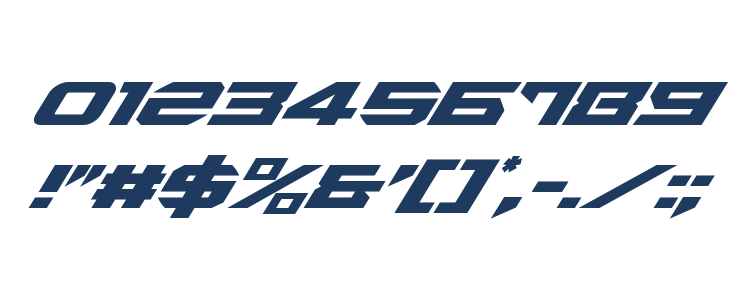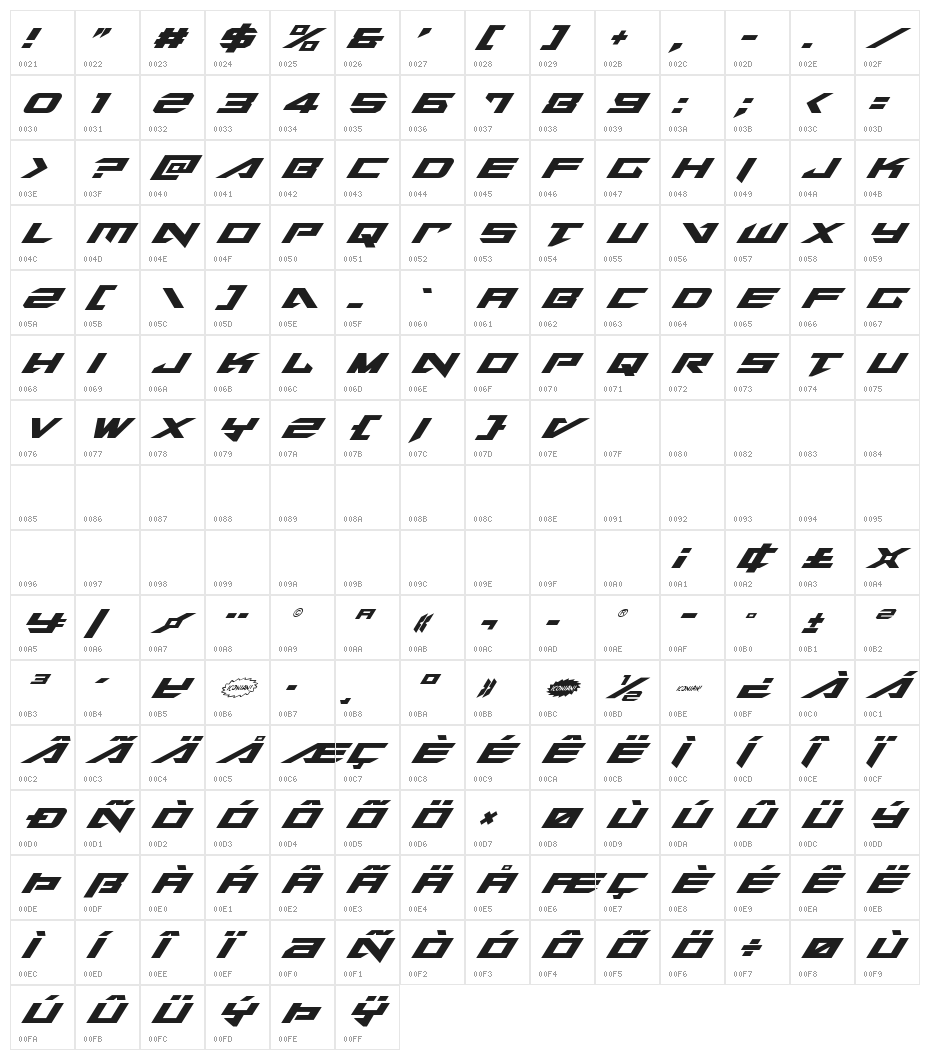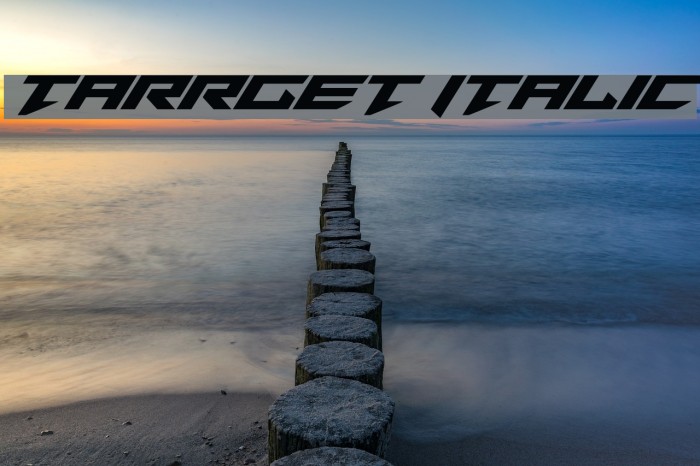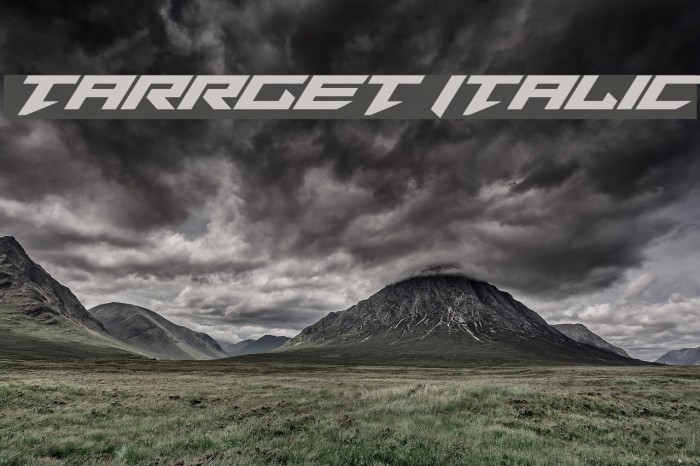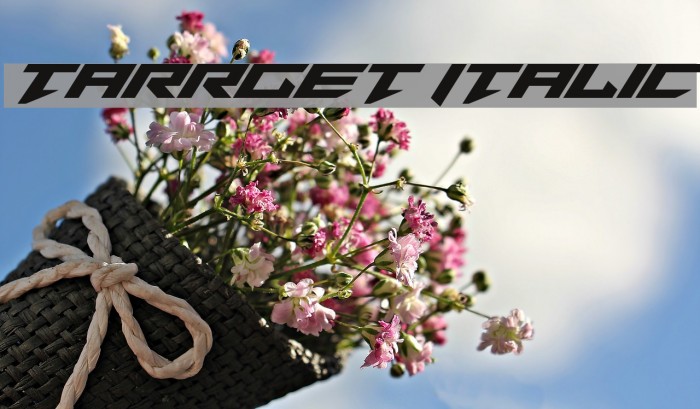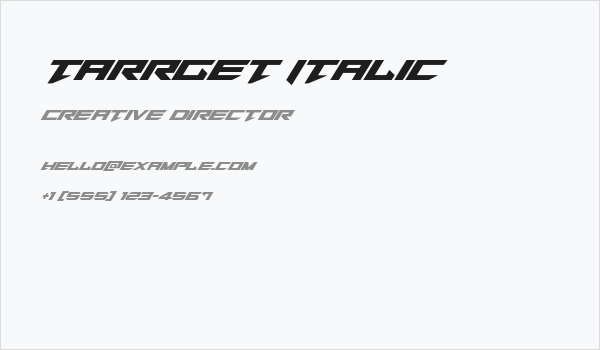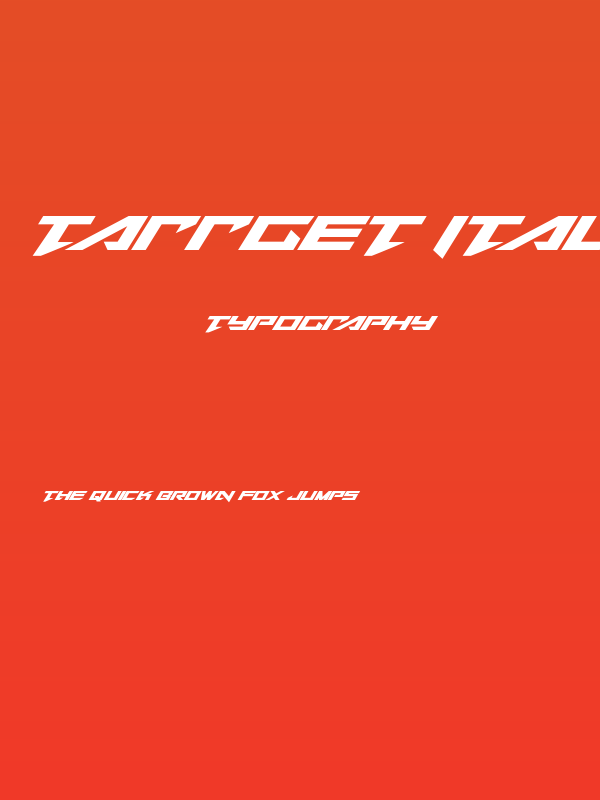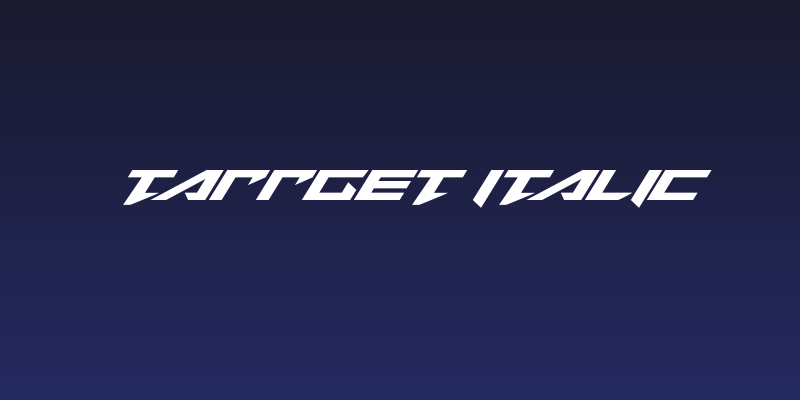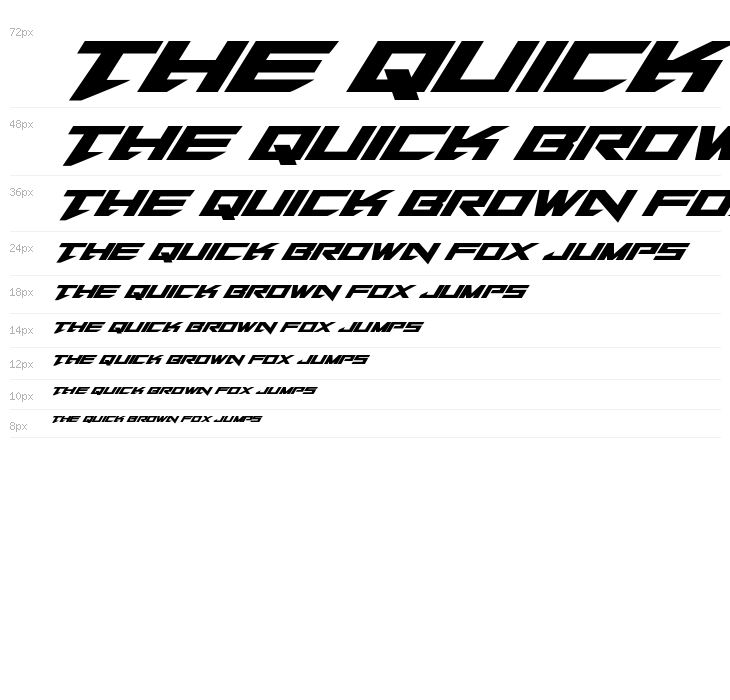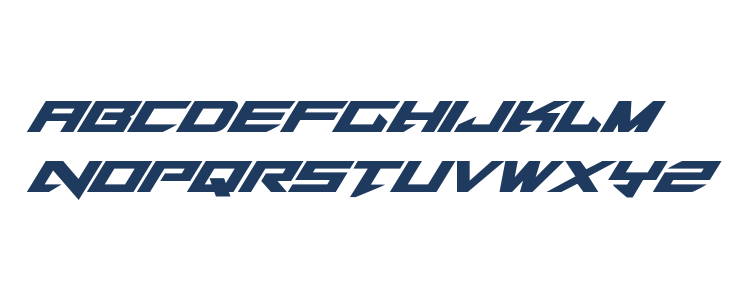
Tarrget Italic Font
Tarrget Italic Description
This font features a bold and dynamic design with a strong italic slant, giving it a sense of motion and energy. The characters are angular and geometric, with sharp edges and a futuristic appearance. The uppercase letters are particularly striking, with a consistent height and width that create a uniform look. The numerals and special characters maintain this bold style, ensuring readability while adding a unique flair. The overall design is modern and eye-catching, suitable for projects that require a strong visual impact.
| Proposed Projects | Ideal for sports branding, automotive designs, video game titles, and tech-related projects. |